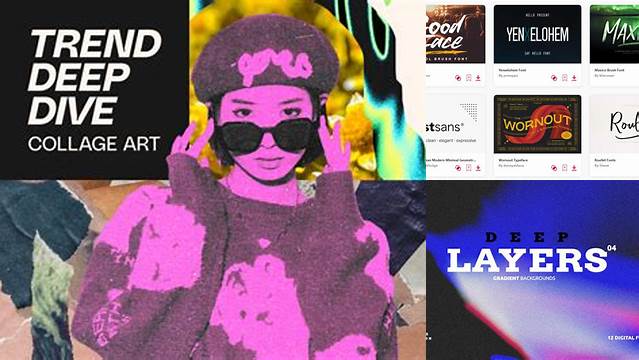
Envato Fonts: What Reddit Users Are Saying
Hey everyone! Let's talk about Envato fonts and what Reddit has to say about them. Finding the right font for your project can be a game-changer, and Envato Elements is a popular platform for designers and creatives. But what's the real scoop? We're diving into the Reddit threads to uncover the opinions, experiences, and hidden gems related to Envato fonts. So, grab a coffee, and let's get started!
1. Envato Elements Font Selection: A Reddit User's Perspective
When it comes to Envato fonts, Reddit users often have a lot to say about the sheer volume of options available on Envato Elements. Some appreciate the extensive library, finding it a treasure trove of unique and creative fonts. They often share their success stories of discovering the perfect font that elevated their design projects. However, others find the vast selection overwhelming, leading to decision paralysis.
The key to navigating this is to use the search filters effectively. Reddit users recommend filtering by font type (serif, sans-serif, script, etc.), style, and even specific keywords related to your project's theme. Don't be afraid to experiment and try out different fonts to see what works best. Many suggest creating a mood board or style guide to narrow down your choices before diving into the Envato Elements library. Ultimately, the diverse font selection on Envato Elements can be a major advantage if approached strategically.
2. Quality of Fonts on Envato: What Reddit Says
Quality is paramount when choosing Envato fonts, and Reddit provides a mixed bag of opinions. Some users rave about the high-quality, professionally designed fonts they've found, praising their readability, versatility, and aesthetic appeal. They often highlight specific font families that have become staples in their design toolkit. These users emphasize the importance of reading reviews and checking the font's character map to ensure it meets their needs.
On the other hand, some Reddit users express concerns about inconsistent quality, noting that not all fonts on Envato are created equal. They advise caution and suggest thoroughly testing fonts before committing to them, especially for large-scale projects. They also recommend looking for fonts from reputable designers or foundries with a proven track record. To avoid disappointment, it's crucial to do your research and not rely solely on the preview images. Remember to check for kerning issues, glyph availability, and overall legibility.
4. Envato Fonts vs. Other Font Providers: A Reddit Comparison
When comparing Envato fonts with other font providers, Reddit users often weigh the pros and cons of each option. Envato Elements is praised for its subscription-based model, which provides access to a vast library of fonts and other design assets for a fixed monthly or annual fee. This can be a cost-effective solution for designers who need a variety of fonts for different projects.
However, some Reddit users point out that other font providers, such as Adobe Fonts, MyFonts, and Google Fonts, offer unique advantages. Adobe Fonts is integrated seamlessly with Adobe Creative Cloud, while MyFonts boasts a curated collection of high-quality fonts from renowned foundries. Google Fonts provides a wide selection of free, open-source fonts that are ideal for web projects. Ultimately, the best choice depends on your specific needs, budget, and design workflow. Reddit users recommend considering factors like font quality, licensing terms, ease of use, and integration with your favorite design tools.
5. Finding Free Envato Fonts: Reddit's Tips and Tricks
While Envato Elements is primarily a subscription service, Reddit users often share tips and tricks for finding free Envato fonts or discounted deals. One common strategy is to keep an eye out for promotional offers, such as free trial periods or limited-time discounts on Envato Elements subscriptions. These promotions can provide access to the entire font library for a short period, allowing you to download and use fonts for your projects.
Another approach is to explore Envato's free design assets, which sometimes include fonts. Envato offers a selection of free files that are updated regularly, so it's worth checking back frequently to see if any new fonts have been added. Additionally, Reddit users recommend following Envato's social media channels and subscribing to their newsletter to stay informed about special offers and freebies. While finding completely free Envato fonts may be challenging, these strategies can help you access them at a reduced cost.